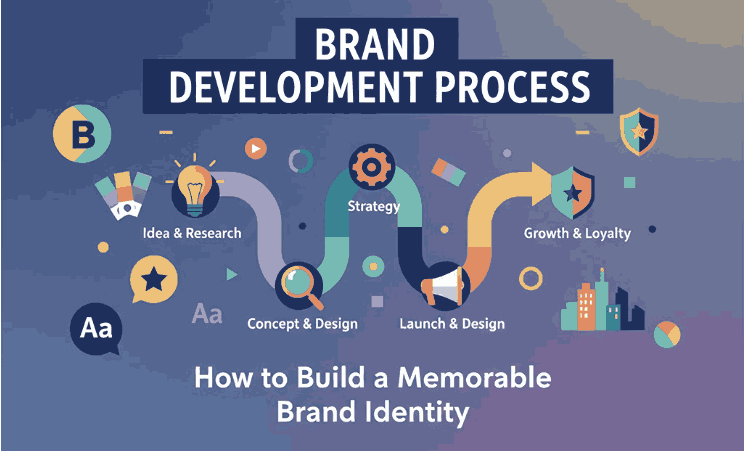
1. Introduction
In today’s competitive market, a strong brand isn’t just about having a great logo or catchy slogan—it’s about building trust, recognition, and emotional connection. The brand development process helps transform your business from a simple idea into a recognizable identity that resonates with your target audience.
Whether you’re a startup or a growing company, understanding how to strategically develop your brand is the foundation for long-term success.
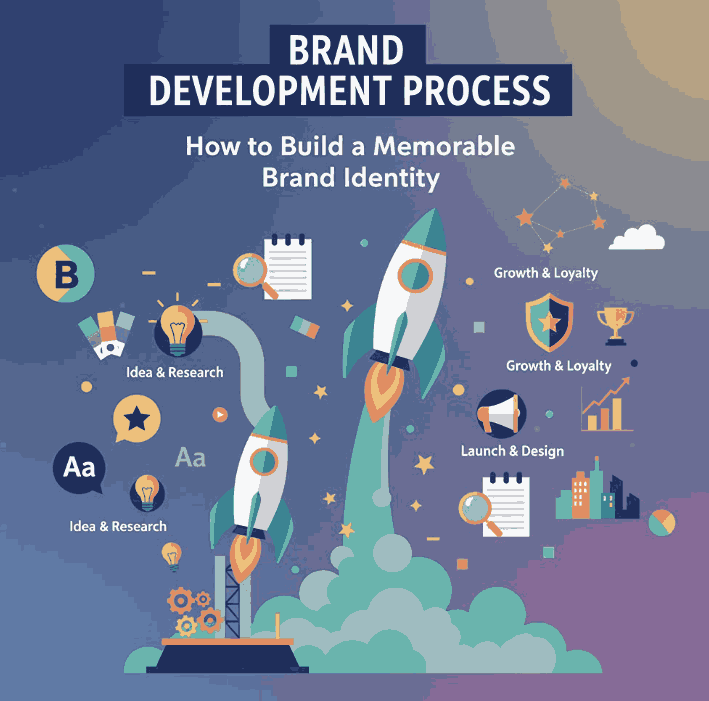
2. What Is Brand Development Process?
Brand development refers to the strategic process of creating and strengthening your brand identity. It combines research, creativity, and consistency to establish a clear message and visual style that communicates who you are and what you stand for.
It’s not just about your logo or color palette—it’s about how people perceive your company. A well-developed brand conveys professionalism, trustworthiness, and authenticity.
3. The Importance of a Strong Brand Development Process
A strong brand offers several advantages:
- Builds customer trust and loyalty.
- Differentiates your business from competitors.
- Increases brand recall and recognition.
- Supports consistent marketing strategies.
- Boosts long-term profitability.
A clear brand identity ensures that your audience immediately recognizes and connects with your values, products, and message.
4. Step-by-Step Brand Development Process
Step 1: Research and Analysis
Begin by understanding your market, audience, and competitors. Conduct:
- Market analysis to identify trends.
- Audience profiling to define customer personas.
- Competitor audits to spot opportunities.
Research gives direction and ensures that your brand’s foundation is built on data, not assumptions.
Step 2: Define Your Brand Identity
This includes defining:
- Mission and vision – what your brand stands for.
- Core values – what principles guide your brand’s behavior.
- Unique selling proposition (USP) – what sets you apart.
Your identity should reflect your tone, style, and promise to customers.
Step 3: Create Your Visual Branding
Your brand’s visual elements—logo, colors, typography, and imagery—are what people notice first. Each element must be consistent with your message and emotional tone.
Step 4: Develop a Consistent Brand Voice
Your brand voice is how you communicate. Whether it’s formal, friendly, or witty, your tone should match your brand identity and be consistent across platforms—website, emails, packaging, and social media.
A clear, consistent voice helps build emotional connection and recognition.
Step 5: Implement and Monitor Your Brand
Once your branding is complete, it’s time to roll it out. Apply your logo, fonts, and color schemes across all materials—digital and physical.
Regularly monitor brand performance through:
- Social media engagement
- Customer feedback
- Brand awareness surveys
Adapt and evolve your strategy as your market changes.
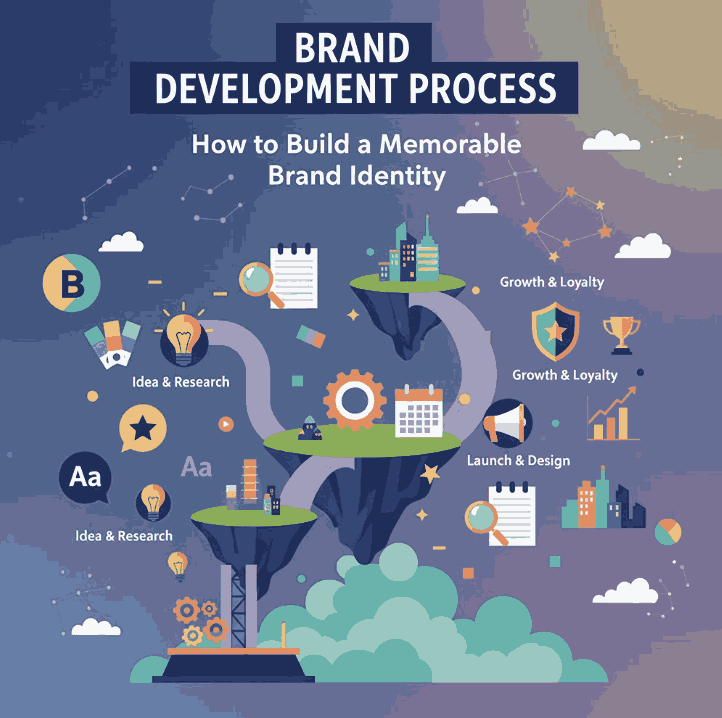
5. Best Practices for Effective Brand Building
- Be authentic—people connect with genuine stories.
- Keep your visuals consistent.
- Prioritize customer experience.
- Evolve your brand with feedback.
- Stay true to your mission and values.
Branding is not a one-time task; it’s an ongoing commitment to your audience.
6. Font Inspiration for Your Brand Design
Typography plays a major role in shaping brand perception. The right font can elevate your logo, website, and product design.
Explore the full collection of handcrafted fonts at CalligraphyFonts.net to find typefaces that bring your brand to life.
7. Conclusion
The brand development process is the foundation of every successful business. It’s about more than visuals—it’s about creating a unified experience that inspires trust, loyalty, and recognition.
By combining strategy, creativity, and consistency, your brand can stand out and leave a lasting impression.
Start building your identity today with the right fonts and design tools to express your unique story.